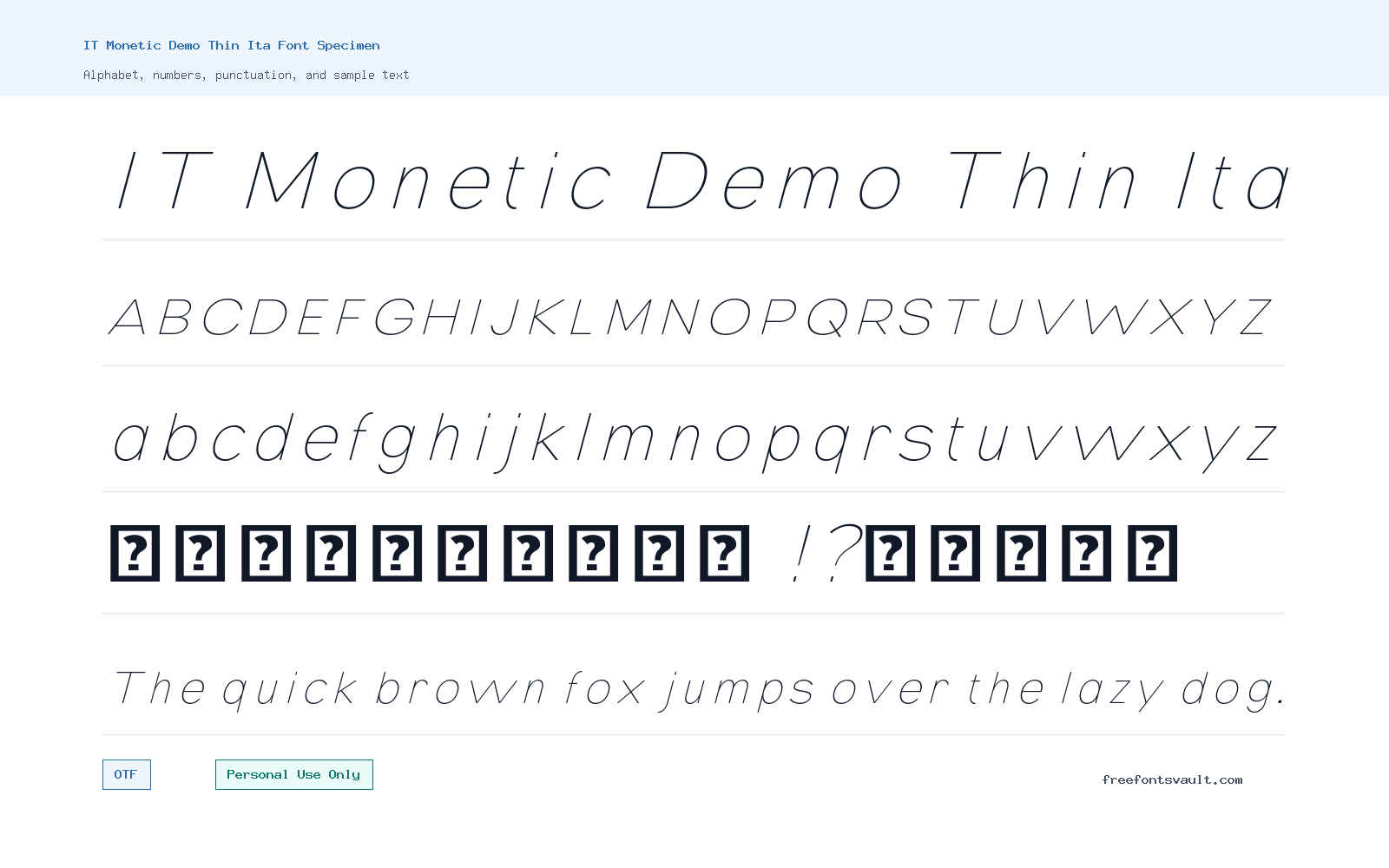
IT Monetic Demo Thin Ita
IT Monetic Demo Thin Ita is a light, italic display style from Indotype Foundry. It is best approached as a personal-use demo font for testing slim, angled lettering in layouts, previews, and concept work.
IT Monetic Demo Thin Ita has a very thin weight and an italic posture, which gives the lettering a clean, slanted, and delicate feel. Because the font weight is marked as 100, it will usually work better in larger sizes than in dense body text. Thin italic fonts can look elegant in short headlines, name treatments, quote graphics, fashion-style layouts, portfolio mockups, and refined poster concepts, but they need enough space around the letters to stay readable.
Use the preview tool to test the exact words you plan to design with, especially if the text includes small punctuation, numbers, or long phrases. A thin italic cut can lose impact when it is too small, placed over a busy image, or used in low-contrast colors. For logo work and branding mockups, try it first in a large size with generous spacing, then compare it against a stronger companion font. It can be useful for early logo exploration, poster titles, web hero mockups, social graphics, stationery concepts, and editorial-style headings, but the personal-use license means it should not be used in client, product, advertising, or commercial work unless the proper license is confirmed separately.
For pairing, keep the second typeface simple. A neutral sans serif, a readable grotesque, or a plain text face will usually support the thin italic style without competing with it. Avoid pairing it with another decorative italic or an ultra-thin script unless the design is intentionally delicate and minimal. If you are building a poster or landing page mockup, let IT Monetic Demo Thin Ita handle the short expressive line, then use a sturdier font for descriptions, buttons, dates, prices, or navigation. This keeps the design balanced and helps visitors read the important details quickly.
Because this is a demo thin italic style, treat it as a way to explore the look of the family rather than as a full production decision. Test uppercase and lowercase words, short brand names, numerals, and common punctuation before committing to a layout. If the font is used for a poster, keep the main text brief. If it is used for a logo mockup, check that the mark still reads clearly when scaled down. If it is used for social graphics, avoid placing it over textured backgrounds unless there is a soft overlay or a clean color block behind the text.
• Thin 100-weight lettering with an italic style for light, angled display typography
• Works best in short, spacious text settings rather than long paragraphs
• Useful for concept work where a refined, minimal, slanted title style is needed
• Personal poster concepts and title treatments
• Logo and wordmark mockups for testing a thin italic direction
• Fashion, editorial, portfolio, and moodboard-style layouts
• Web hero mockups, social graphics, and quote designs with short text
• Pairing with a stronger sans serif for balanced hierarchy
What kind of font is IT Monetic Demo Thin Ita?
It is a thin italic OTF font. The file information lists the style as italic and the weight as 100, so it is best suited to light display use rather than long reading text.
You can test it in personal logo concepts and mockups, but commercial logo use needs proper licensing. Also check the design at small sizes, because very thin italic strokes may lose clarity when scaled down.
What should I pair with IT Monetic Demo Thin Ita?
Pair it with a clean, readable sans serif or a simple text font. Let IT Monetic Demo Thin Ita handle the short headline or accent line, and use the sturdier font for body copy and practical details.
Is the font good for body text?
It is not the best choice for long paragraphs. A thin italic weight is usually easier to read in short headlines, quotes, names, and display settings.